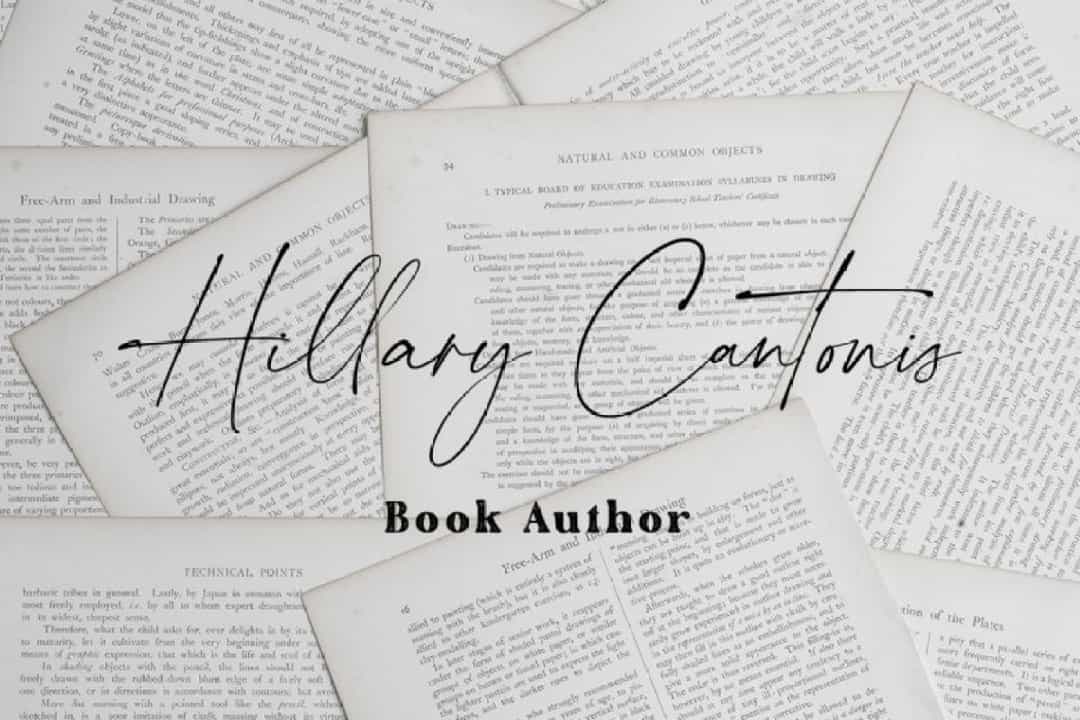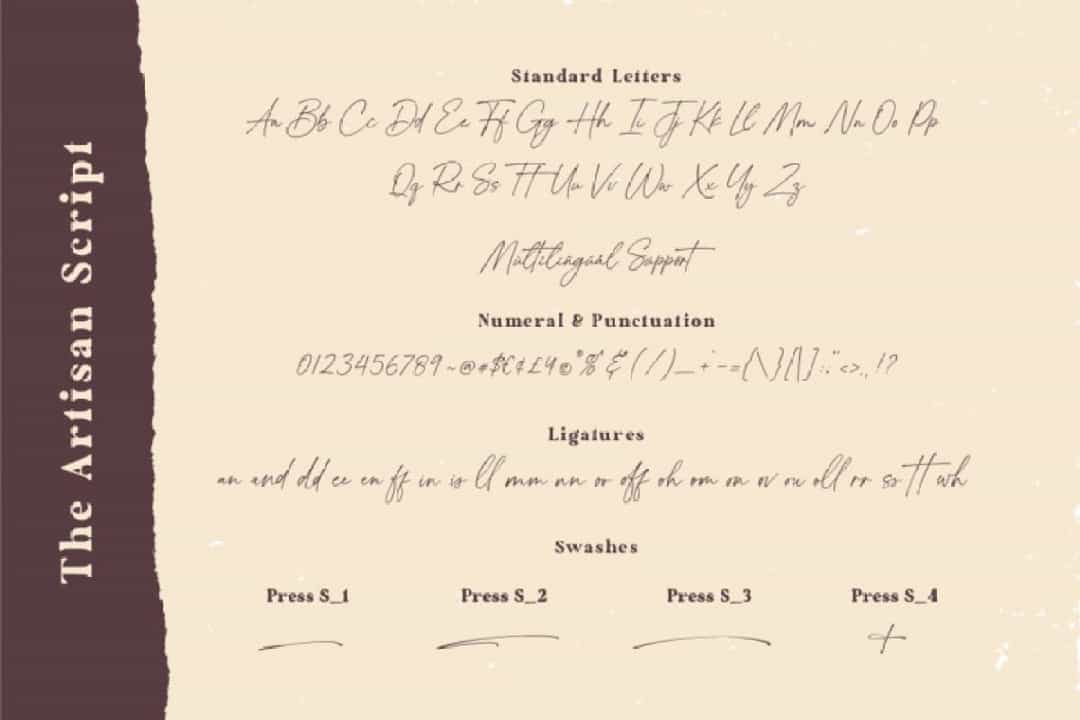
Discover The Artisan Font, part of the Handwritten Script Personal collection—a versatile and unique font perfect for adding a personal touch to your projects. Download it for free and enjoy crafting designs with style, from invitations to social media posts. This font is available exclusively for personal use, giving you the freedom to create without limits. Unlock your creativity with The Artisan Font today!
The Artisan is a set of two fonts that was drawn freehand. The set contains 3 serif fonts and one script font, hence, it can be applied for logos, packaging, printed products, websites, captions or social media with a touch of elegance. These two fonts are rather stylish and up to date when combined for use.